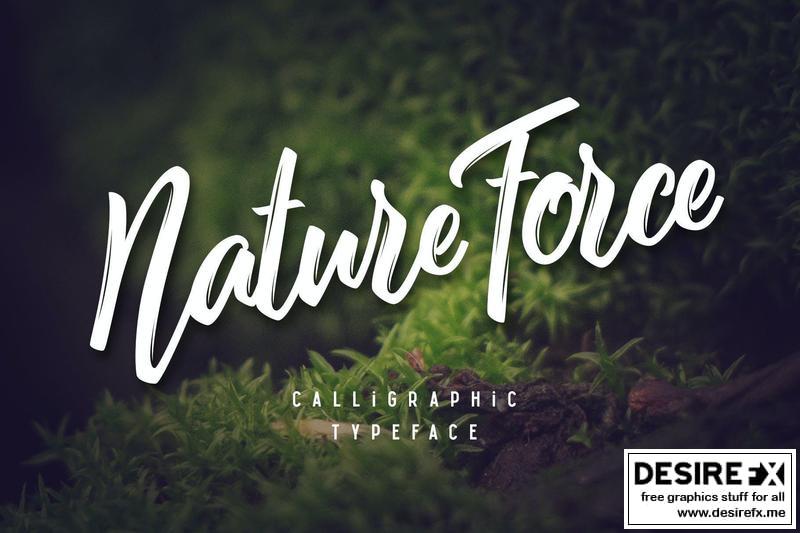
Nature Force T9UZH53
Hi, introducing a script font named “Nature Force”. It’s a calligraphic typeface with fine small details. This font comes in otf & ttf formats. Also it has lot’s multilingual characters and useful ligatures.